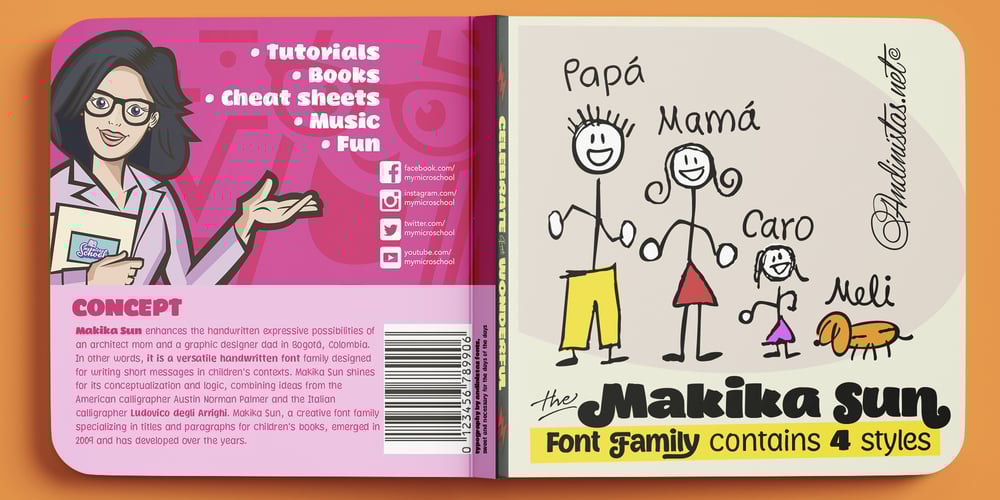
Makika Sun Font Family was designed by Carlos Fabián Camargo Guerrero and published by Andinistas. Makika Sun contains 4 styles and family package options. Makika Sun enhances the handwritten expressive possibilities of an architect mom and a graphic designer dad in Bogotá, Colombia. In other words, it is a versatile handwritten font family designed for writing short messages in children’s contexts. Makika Sun shines for its conceptualization and logic, combining ideas from the American calligrapher Austin Norman Palmer and the Italian calligrapher Ludovico degli Arrighi. Makika Sun, a creative font family specializing in titles and paragraphs for children’s books, emerged in 2009 and has developed over the years. Its essence lies in the simplicity of handwriting. In 2023, Makika Sun was applied in the book “Secret Files Tardigrades 1” for children ages 5-6 on Amazon from MyMicroSchool. The main goal of Makika Sun is to emulate handwriting that is legible and accessible to everyone.Makika Sun stands out for its readability and uncomplicated, artisanal style. It offers four typographic styles that simulate different calibers of markers: thick tip (Makika Sun Black), medium tip (Makika Sun Bold), normal tip (Makika Sun Regular) and Makika Sun Dingbats, a set of arrows and figures perfect to enrich your writing. . In short, Makika Sun’s versatility and stylistic uniformity make it easy to create writing in various typographic settings. Its typographic heart communicates harmony in messages meticulously designed for spontaneous contexts that require high readability. Makika Sun offers a dynamic range of styles in 4 fonts notable for their outstanding performance in the field of children’s book design and the creation of playful brand identities.